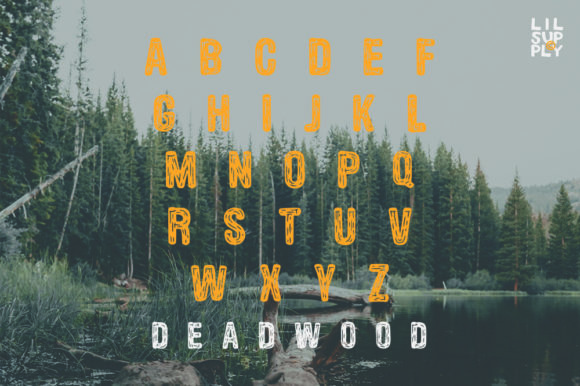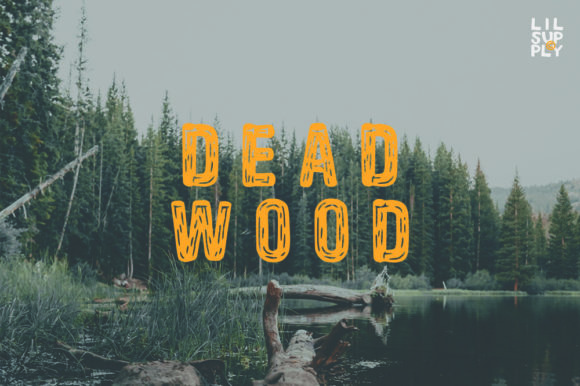
Discover the Unique Charm of Deadwood Font: Elevate Your Designs with a Touch of Adventure
In the world of typography, fonts play a crucial role in setting the tone and aesthetic of a design. For those seeking a bold and eye-catching style that screams adventure and nature, look no further than the Deadwood Font. This interesting display font is specifically designed to make a statement, combining chunky and bold characteristics that are sure to make any project stand out.
The Essence of Deadwood Font
Deadwood Font is not just any ordinary typeface. Its unique design elements are carefully crafted to evoke a sense of ruggedness and exploration, making it the perfect companion for adventure illustrations or nature-themed graphics. Whether you’re working on a travel brochure, an outdoor gear catalog, or a nature-inspired art piece, Deadwood Font brings a distinctive flair that captures the essence of the great outdoors.
Key Features of Deadwood Font
- Chunky and Bold Style: The font’s substantial and bold appearance ensures that your text does not go unnoticed. Its chunky letters are designed to be attention-grabbing, making it ideal for headlines, titles, and any text that needs to make a strong impact.
- Versatility: Despite its bold nature, Deadwood Font surprisingly works well in various design contexts. From posters and flyers to digital banners and social media graphics, its adaptability makes it a valuable asset for any designer.
- Legibility: One of the standout features of Deadwood Font is its legibility, even at larger sizes. This ensures that your message is conveyed clearly and effectively, without compromising on style.
- Unique Character: Each letter in the Deadwood Font is designed with a unique character, adding a personal touch to your designs. This uniqueness helps in creating visually appealing and engaging content.
Using Deadwood Font in Your Designs
Integrating Deadwood Font into your projects is straightforward. Here are some tips on how to make the most of this versatile font:
- Pair with Nature-Inspired Imagery: Combine Deadwood Font with high-quality images of landscapes, wildlife, or outdoor activities to create a cohesive and engaging visual narrative.
- Experiment with Colors: While the font itself is bold and attention-grabbing, experimenting with different colors can further enhance its appeal. Earth tones, vibrant greens, and sky blues can complement the font’s rugged charm.
- Mix with Other Fonts: For added depth and interest, consider pairing Deadwood Font with complementary fonts. A sans-serif font for body text can create a nice contrast and improve readability.
Who Can Benefit from Deadwood Font?
Deadwood Font is a valuable resource for a wide range of designers and crafters, including:
- Graphic Designers: Looking for a bold and unique font to make their designs pop.
- Illustrators: Seeking typography that complements their nature-inspired and adventure-themed illustrations.
- Marketing and Advertising Professionals: Needing eye-catching fonts for campaigns and promotional materials.
- Crafters and Makers: Creating handmade products, such as signs, cards, and DIY crafts, that require a personal touch.
Deadwood Font is more than just a typeface; it’s a design statement. Its bold, chunky, and adventurous vibe makes it an excellent choice for anyone looking to add a touch of exploration and ruggedness to their projects. With its versatility, legibility, and unique character, Deadwood Font is poised to become a go-to font for designers and crafters seeking to make a lasting impression. So why settle for ordinary when you can make a statement with Deadwood Font?